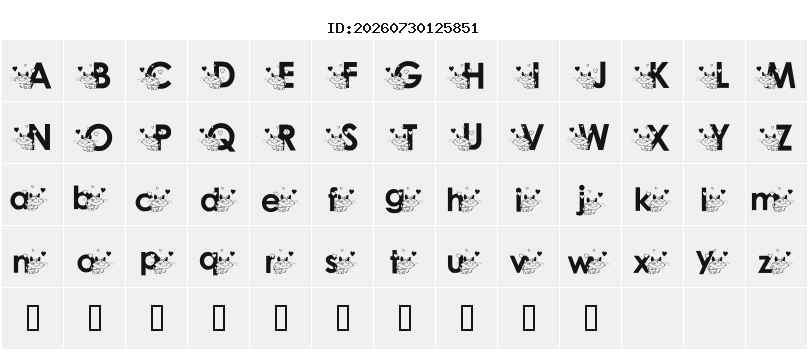
• Font Name: KATZCATZ_KG
• Font ID: Macromedia Fontographer 4.1 KATZCATZ_KG
• Full Font Name: KATZCATZ_KG
• Version: Macromedia Fontographer 4.1 1/30/2001
• PostScript Name: KATZCATZKG
• Character Count: 53
• Copyright: KATZ GRAPHICS 2001
About KATZCATZ_KG.ttf
KATZCATZ_KG.ttf is a modern, elegant sans-serif font designed for ultimate readability and visual harmony. Perfect for branding, headlines, web design, and print materials.